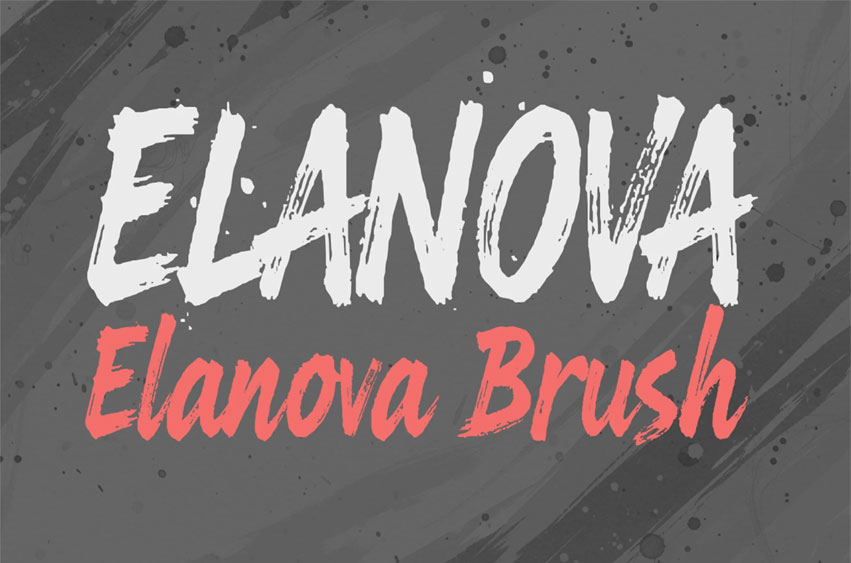
Elanova Brush Font
Elanova Brush Font is a handcrafted script font created with natural brush strokes to deliver an authentic, handmade feel. Every letter is drawn by hand, resulting in organic textures, imperfect edges, and expressive movement that bring true personality into your design.
As a handmade script, Elanova Brush blends fluid handwriting with bold brush pressure, giving it a dynamic look perfect for display use.
Designed for designers who want a strong handmade character, Elanova Brush captures the energy, spontaneity, and charm of real brush lettering—making it ideal for modern, expressive, and creative projects.
• Handmade script brush style
• Natural textured strokes
• Authentic brush texture
• Bold and expressive stroke style
Let Elanova Brush elevate your creative projects with its raw, energetic, and handcrafted charm.